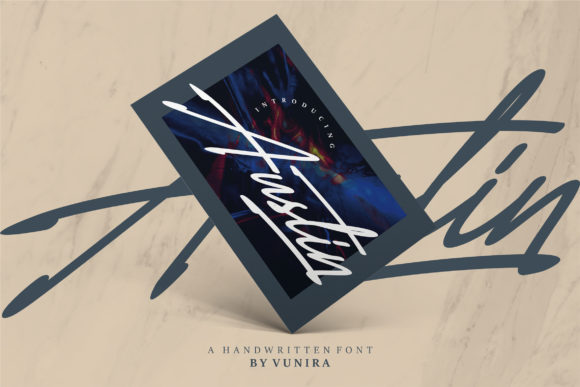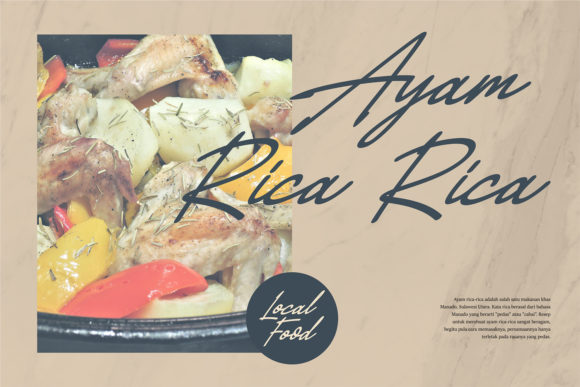
About Austin Font
Introducing Austin, the extraordinary signature font that will leave you amazed. With its stunning ligatures, this script font exudes versatility like no other. Whether you’re in need of fonts for Instagram posts or calligraphy scripts for your DIY projects, Austin is your go-to choice to turn any creative idea into a true masterpiece.
The elegance and beauty of Austin lie in its unique signature style. Each letter is meticulously crafted to create a seamless and natural flow, giving your designs a touch of personal flair and sophistication. The use of ligatures in Austin further enhances its charm, allowing the letters to connect effortlessly and creating a harmonious and authentic look.
Austin is a perfect companion for your social media presence, especially on platforms like Instagram. With this font, your captions, quotes, and graphics will stand out and capture the attention of your audience. Whether you’re a content creator or a business owner, Austin will elevate your visual storytelling and brand identity to new heights.
Furthermore, if you’re into DIY projects and love calligraphy, Austin will become your creative muse. Whether you’re working on handmade greeting cards, custom invitations, or personalized gifts, this signature font will add a touch of elegance and artistry to your crafts.
The versatility of Austin extends beyond digital and print media. It seamlessly adapts to various creative projects, from branding to packaging, and from logos to blog headers. Whatever the medium, Austin’s grace and charm will shine through, leaving a lasting impression on anyone who encounters your designs.
In conclusion, Austin is the epitome of a remarkable signature font. Its exquisite ligatures and natural flow make it incredibly versatile, suitable for a wide range of creative projects. Whether you’re creating content for social media or delving into calligraphy for DIY crafts, Austin will effortlessly transform your ideas into true pieces of art. Embrace the beauty and sophistication of Austin, and witness your designs come alive with a touch of personalized elegance.